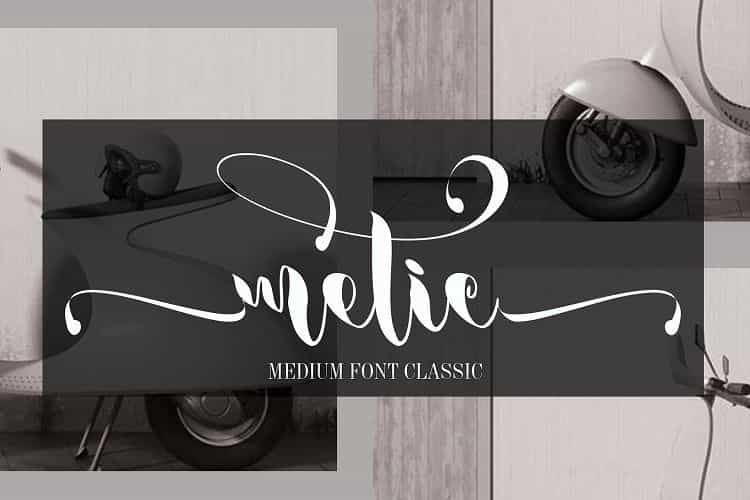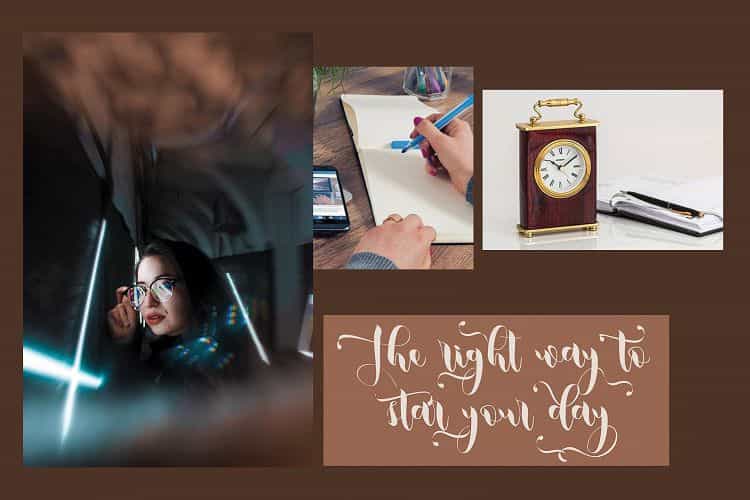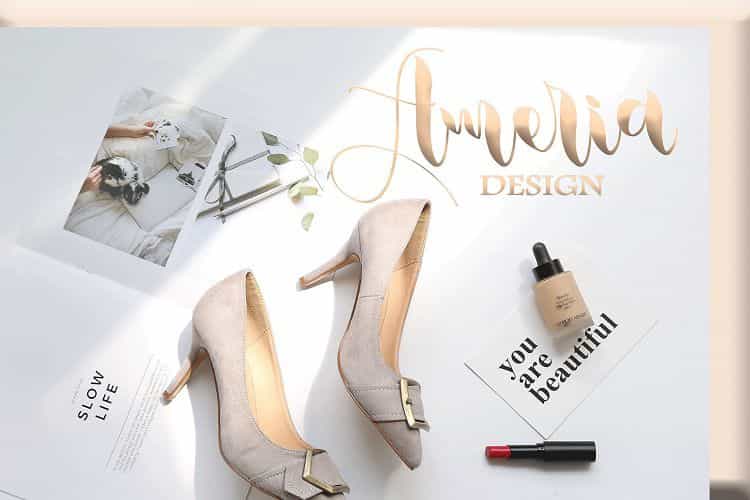
Discover Metic Calligraphy Font, part of the Calligraphy collection—a versatile and unique font perfect for adding a personal touch to your projects. Download it for free and enjoy crafting designs with style, from invitations to social media posts. This font is available exclusively for personal use, giving you the freedom to create without limits. Unlock your creativity with Metic Calligraphy Font today!
Introducing Metic Font! Metic font is a medium classic style font which again presents with new style that has a neat form of the characters, we can only create this type of fonts for various needs in accordance to your invitation and other designs you need.